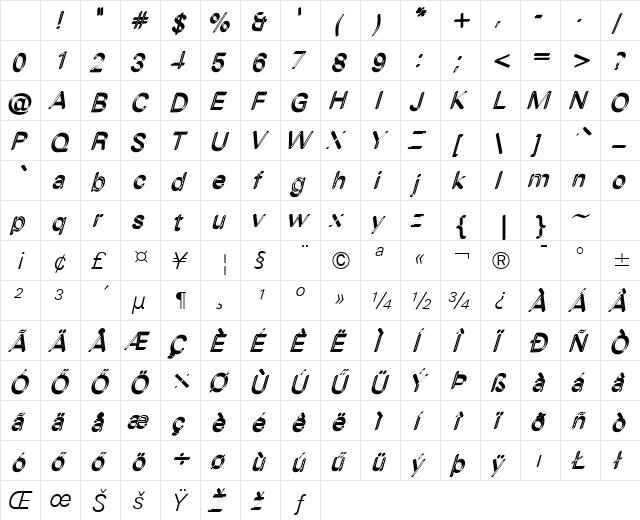
Zurich-Light-HU is a composed and adaptable typeface that performs quietly and consistently across a wide range of design contexts. Its slender proportions lend an understated elegance to any composition.
Pro Tip: Use Zurich-Light-HU in both headline and body roles to test its range before committing to a single application.